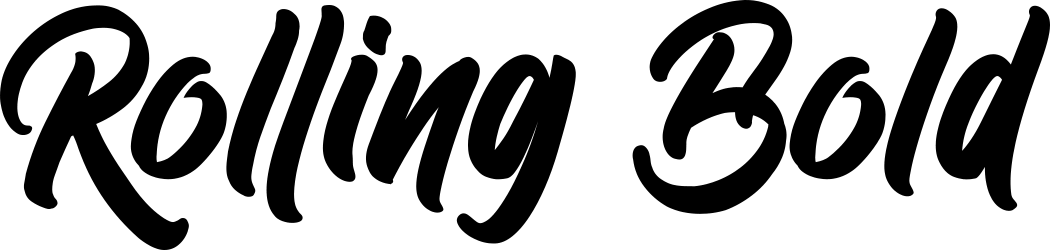
Rolling Bold Font
Rolling Bold font has a marker and retro style that can be an excellent chance for your graphic designs. This hand-drawn font will best fit many birthday and wedding invitation cards, primarily if you use brush fonts alongside it.
If you are interested in designing invitation cards and posters this font will allow you to have a powerful and attractive title in your club with other elements.